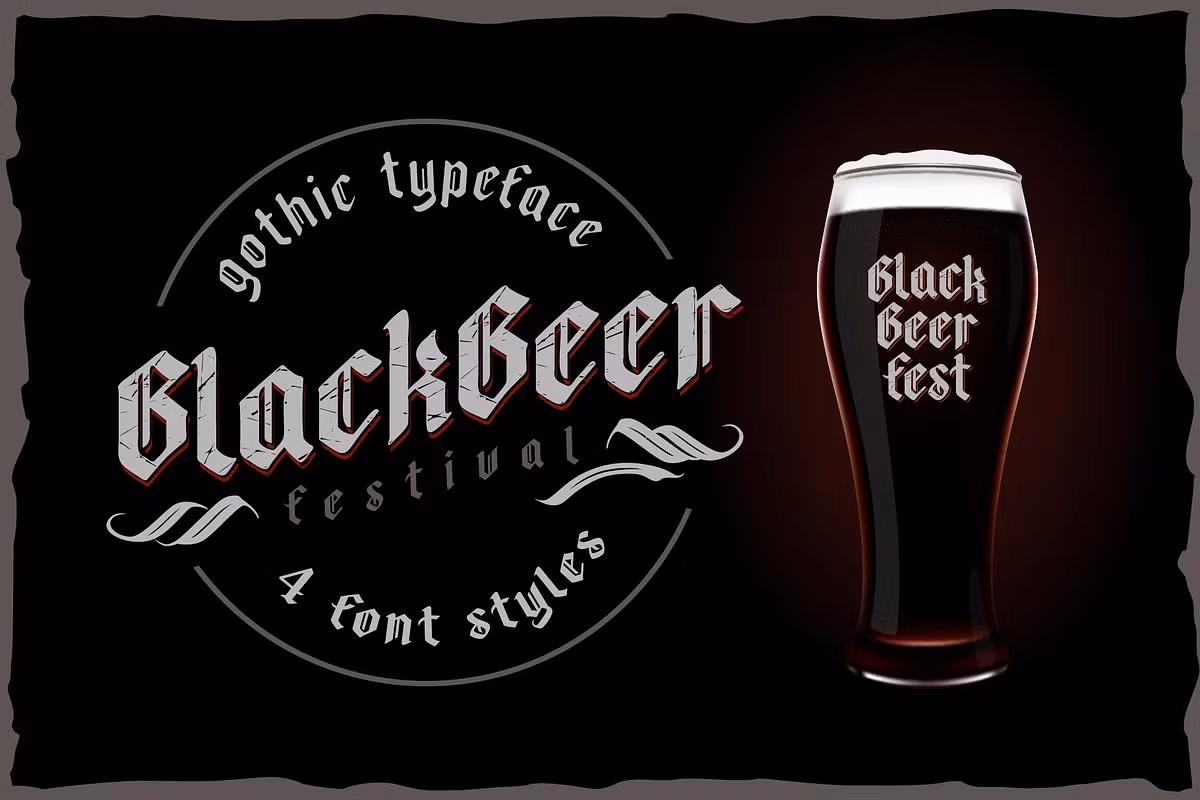
Blackbeer - strong gothic typeface Free Download
Blackbeer – Strong Gothic Typeface Free Download is a bold and commanding typeface that draws inspiration from medieval blackletter styles with a modern edge. With its sharp angles, dramatic curves, and heavy weight, Blackbeer is perfect for beer labels, rock band logos, tattoo designs, pub signage, gothic apparel, and vintage branding projects that demand attention and power.
Designed to evoke strength and tradition, Blackbeer – Strong Gothic Typeface Free Download delivers old-world character with contemporary versatility. Its intricate details and authoritative presence make it ideal for headline use, especially in designs that celebrate craftsmanship, heritage, or rebellion.